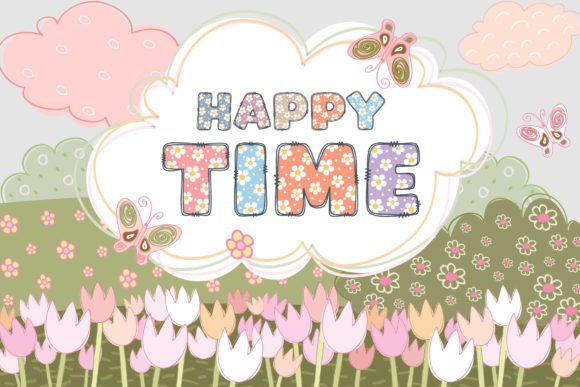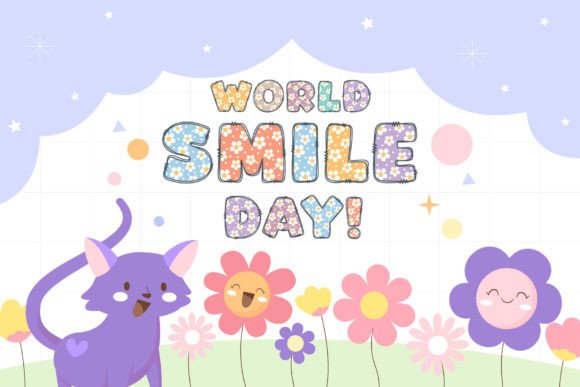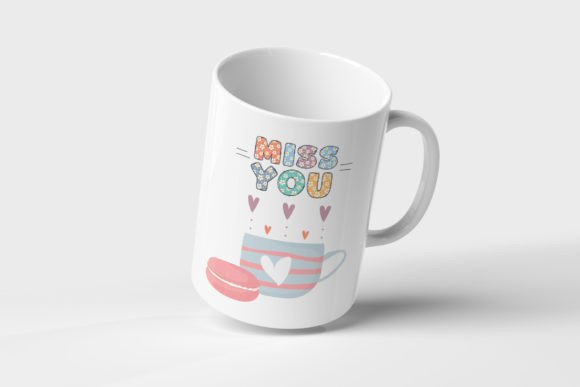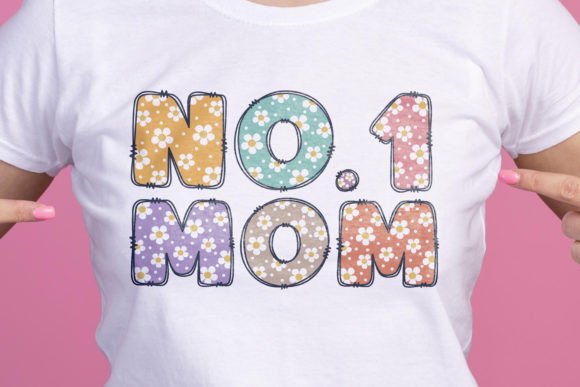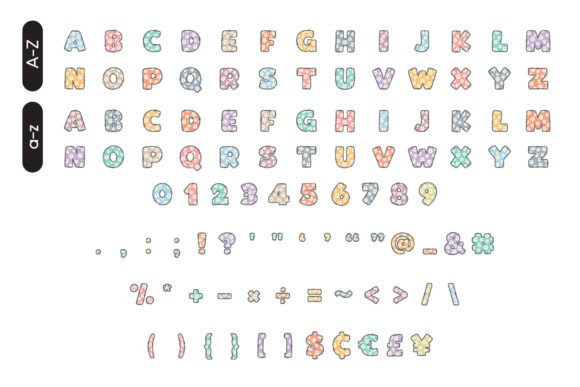
The Fox Milady Font: A Designer’s New Best Friend
I’ll never forget the time I was working on a project for a client who wanted a custom invitation for a themed party. I had spent hours browsing through font libraries, but nothing seemed quite right. That was until I stumbled upon the Fox Milady font. Its unique blend of playfulness and sophistication immediately caught my eye, and I knew I had found the perfect fit. In this article, I’ll share my experience with the Fox Milady font, its features, and how to make the most of it in your designs.
- ✨ The Fox Milady font is a stunning color display font that’s perfect for creating eye-catching designs.
- ✅ Its authentic feel makes it ideal for invitations, stationery, social media posts, and greeting cards.
- 🎨 The color options are endless, allowing you to customize your designs to fit your brand or personal style.
The Story Behind Fox Milady
The Fox Milady font was designed with the intention of creating a unique and playful font that would add a touch of personality to any design. The designer aimed to create a font that was both fun and elegant, making it perfect for a wide range of creative projects. While the real story behind the font’s creation may be unknown, it’s clear that the designer succeeded in creating a truly special font.
| What type of font is Fox Milady? | Fox Milady is a color display font, specifically an OpenType full-color (SVG) font. |